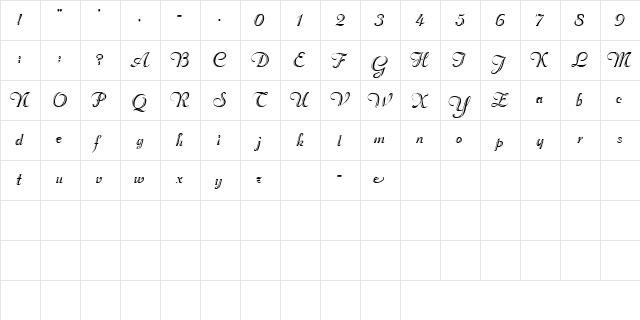
ValletortSSK Regular
Design Context for ValletortSSK Typeface
ValletortSSK is a composed and adaptable typeface that performs quietly and consistently across a wide range of design contexts.